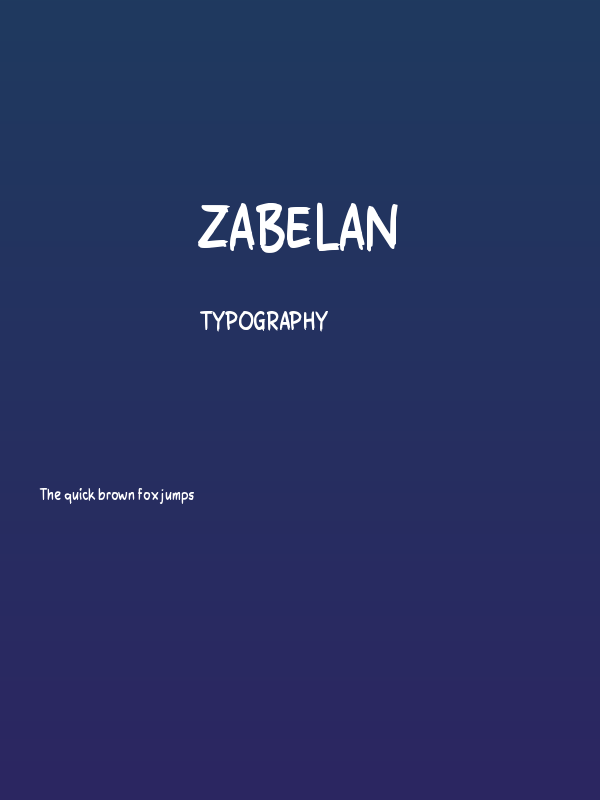
Zabelan Font
Zabelan Description
A playful, handwritten style font with rounded, irregular strokes that give it a casual and friendly appearance.
| Overall Style | Casual, Playful, Friendly |
| Use Case | Headlines, Children's materials, Informal branding, Invitations |